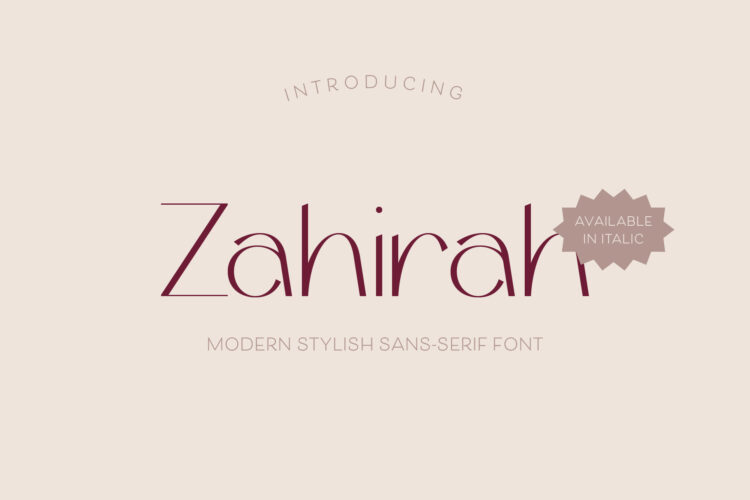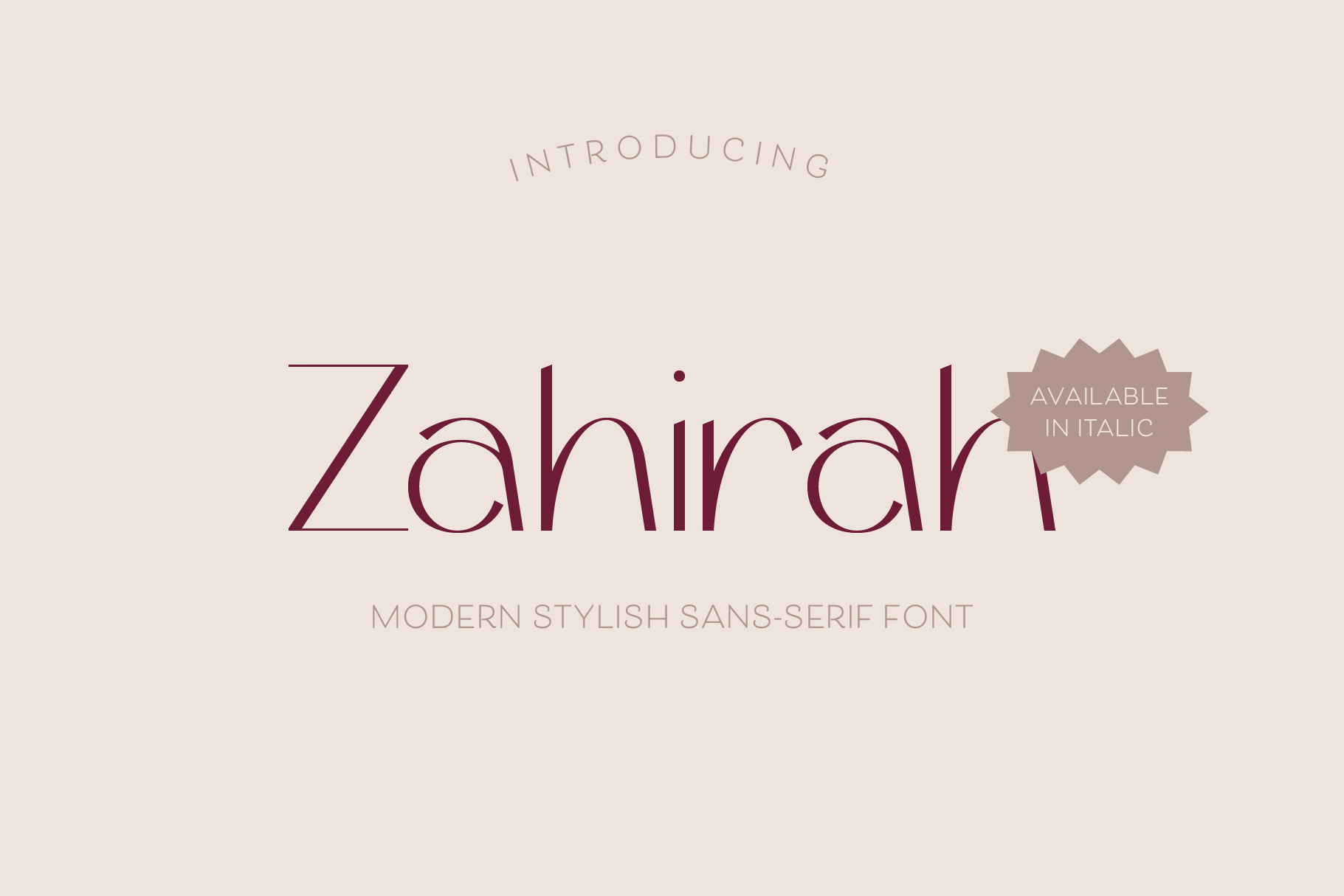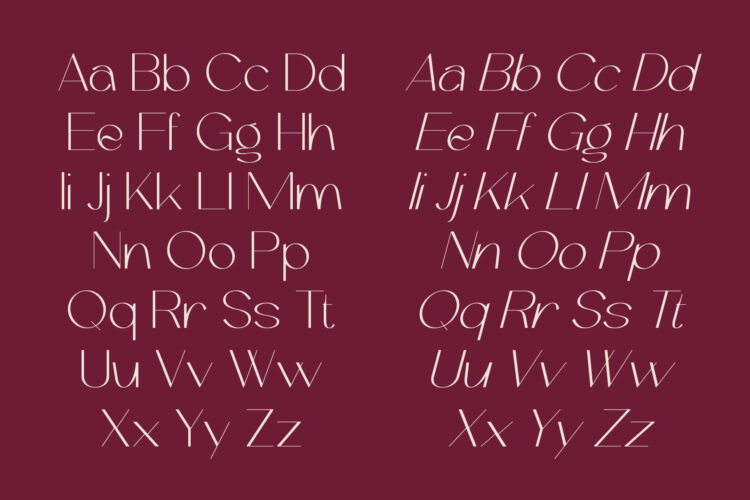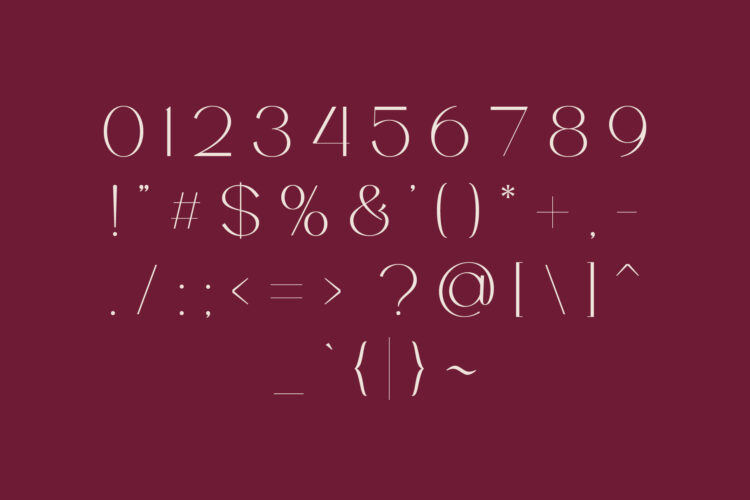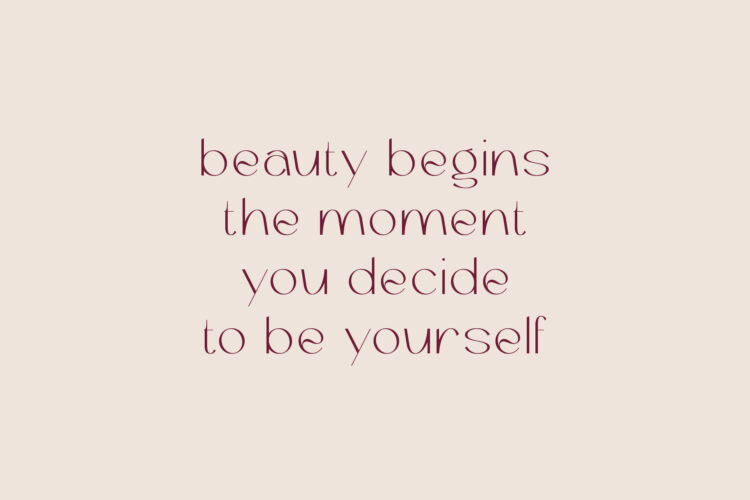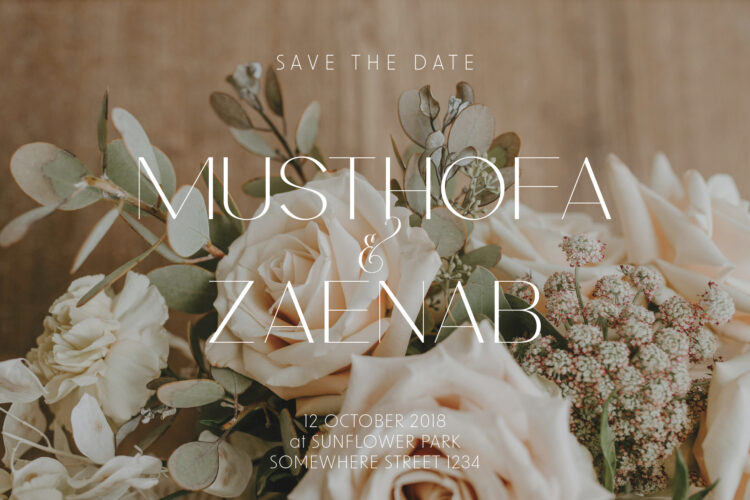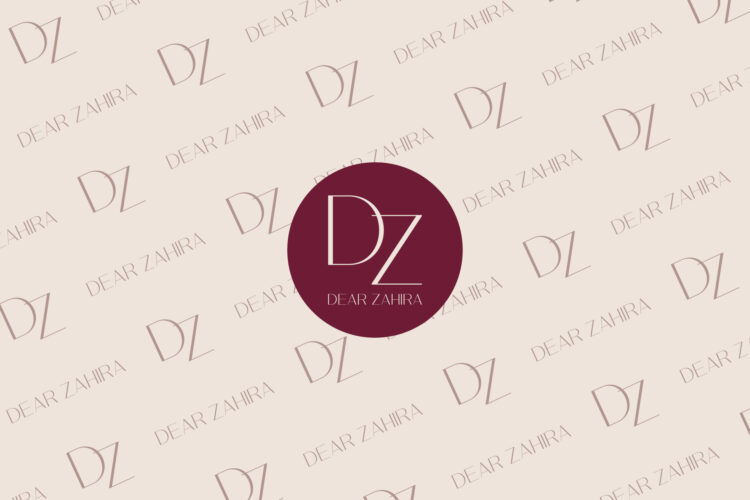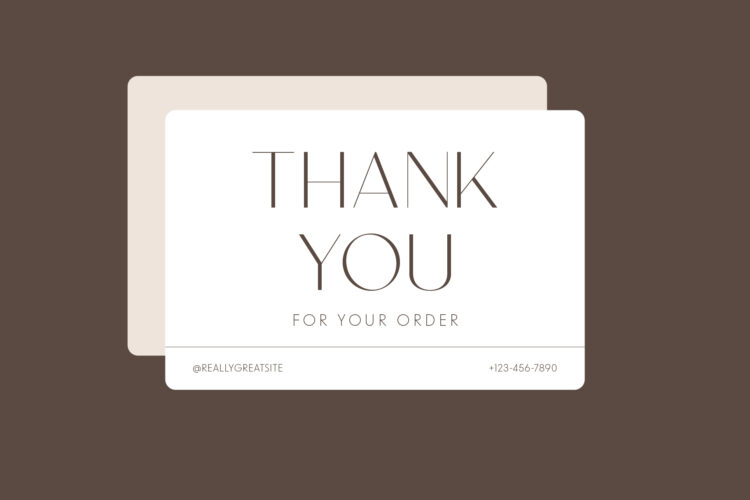
Zahirah is a graceful sans serif font defined by its thin, elegant lines. It has a refined, charming feel that adds a touch of class to any layout. Use it for romantic, luxury designs such as wedding invitations, beauty‑product labels, fashion magazines, or jewelry catalogs.
This font includes all the letters A to Z, numbers, and basic punctuation. You also get italic versions of each character. That flexibility lets you mix styles in your work without needing extra fonts.
Zahirah – Elegant Font